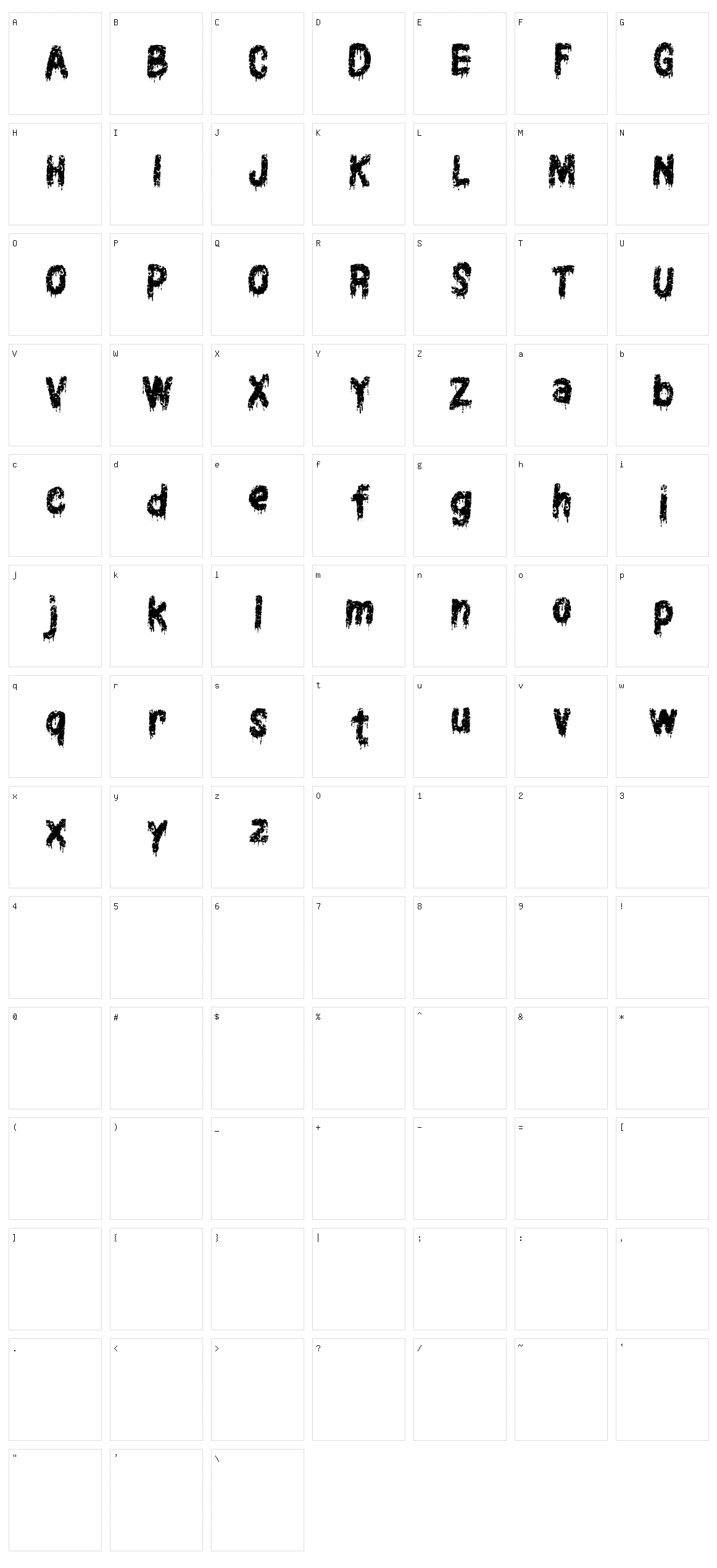
The free font Assassin is carefully designed by Vunira Design, showcasing a thoughtful balance of creativity and usability and falls under the Horror font style. When you download the ZIP file, it contains only 250.49 KB of font files, making it lightweight and quick to download. Please review the license details below to understand permitted usage and distribution rights. If license information is not available, we recommend using this font for personal projects only or contacting the author directly for commercial usage permissions.